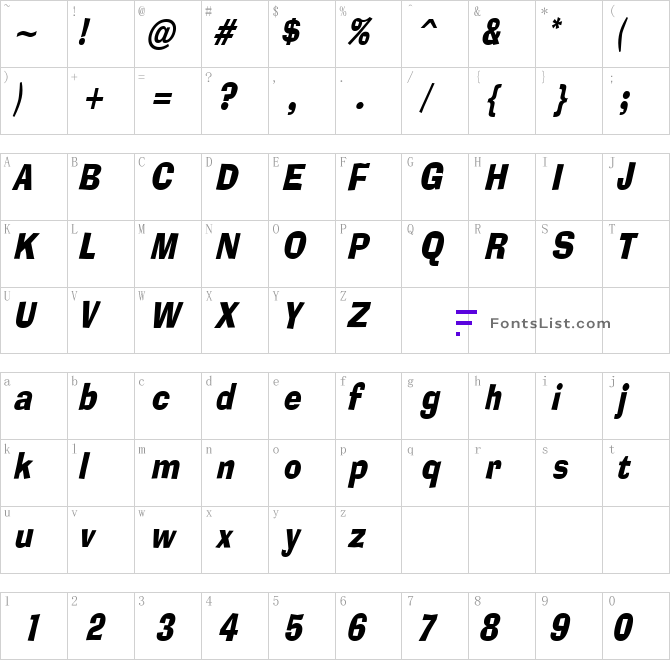
- Font Name:Alor Narrow Condensed
- Subfamily:BoldItalic
- Subfamily:Altsys Fontographer 4.1 Alor Narrow Condensed BoldItalic
- Full Name:Alor Narrow Condensed BoldItalic
Alor-Narrow-Condensed-BoldItalic.ttf is a very beautiful artistic font, Alor-Narrow-Condensed-BoldItalic.ttf is widely used in the design and printing of various books and pictures,Alor-Narrow-Condensed-BoldItalic.ttf has a strong visual impact,Alor-Narrow-Condensed-BoldItalic.ttf is a commonly used font in newspapers, magazines and books, and is used in posters, e-commerce Poster design, store design, logo design, font design and other fields.Alor-Narrow-Condensed-BoldItalic.